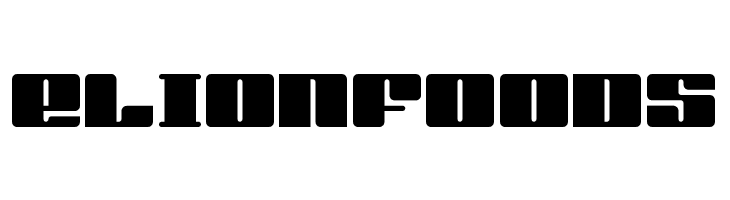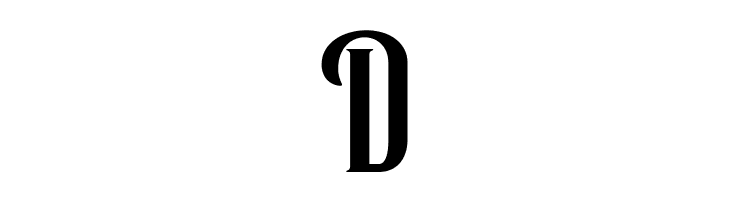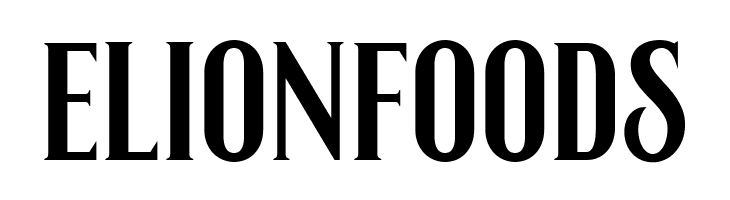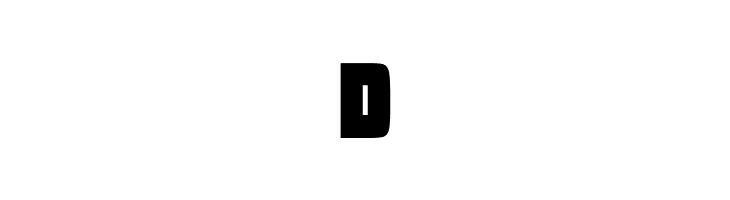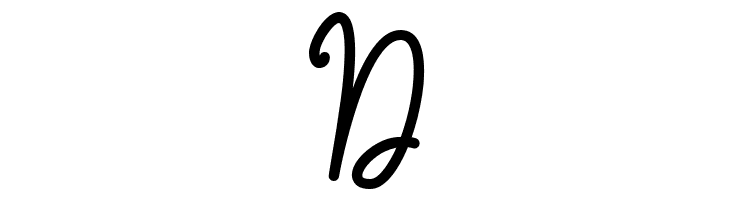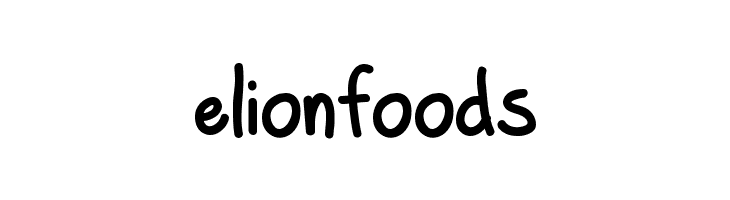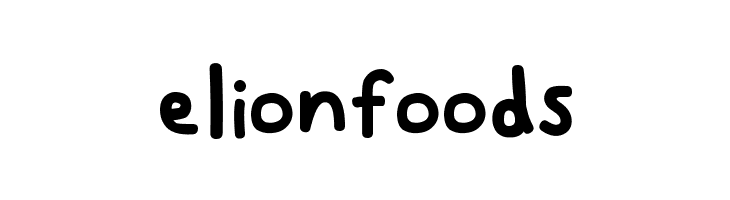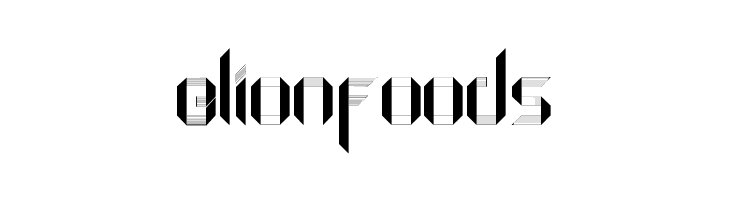
A smooth, monoline script font with elegant, connected characters.
A geometric, three-dimensional font with bold, angular lines and a paper-like appearance.
A bold, decorative font with geometric shapes and star cut-out details.
A playful, rounded font with bold, smooth strokes and uniform spacing.
A bold, high-contrast font with elegant curvature and strong presence.
A bold, decorative font with a textured, grid-like pattern.
A bold, geometric font with a strong, industrial feel.
A lively and expressive script font with bold, flowing letterforms.